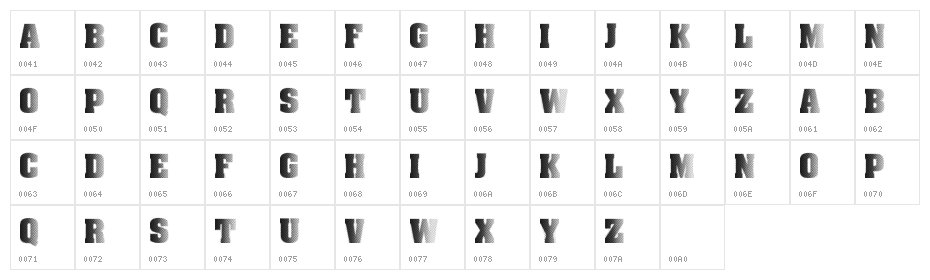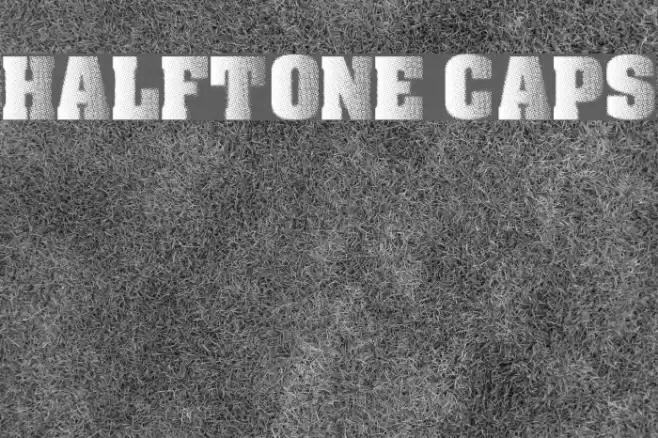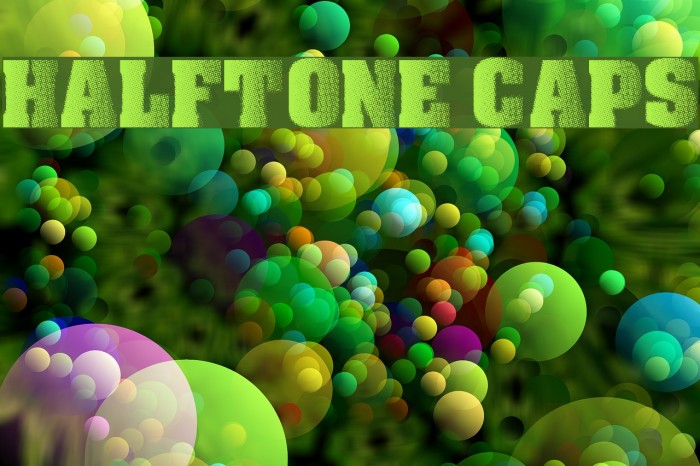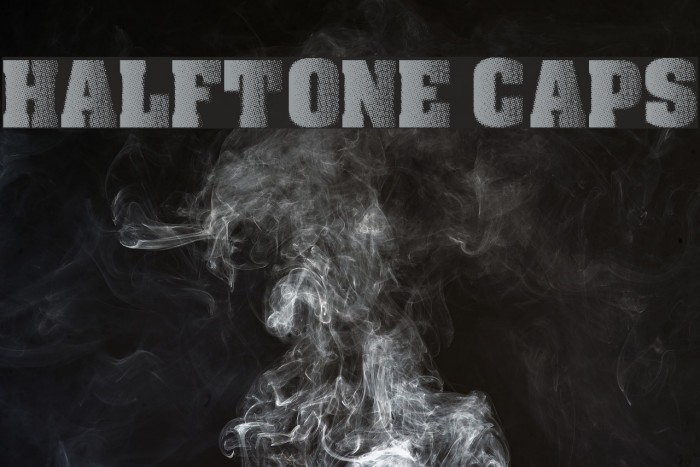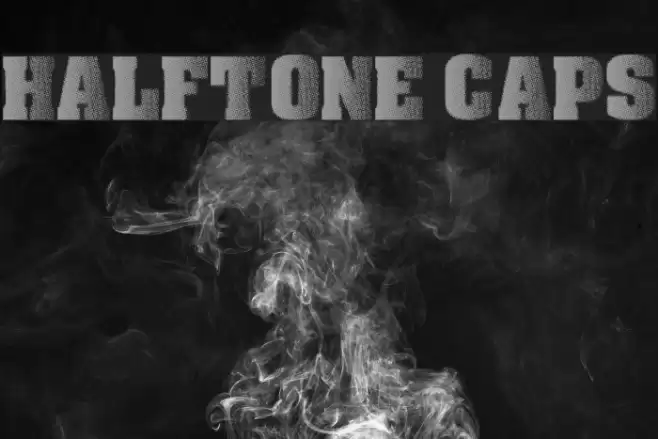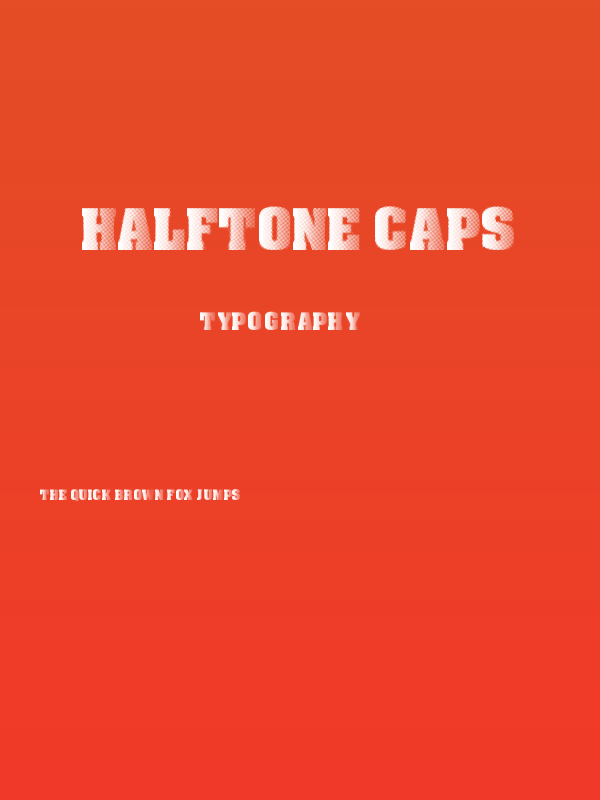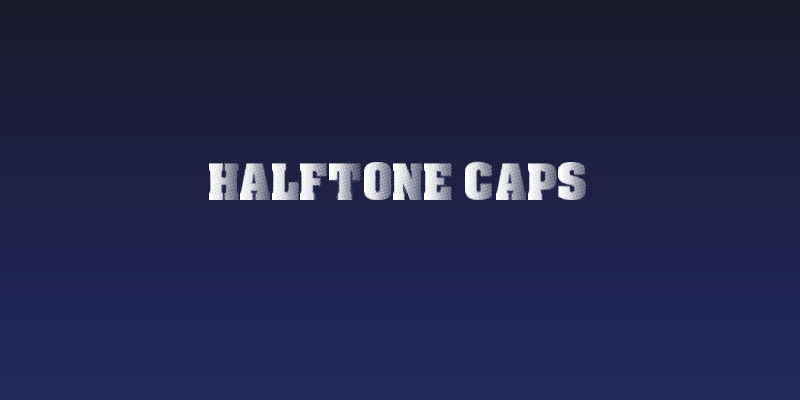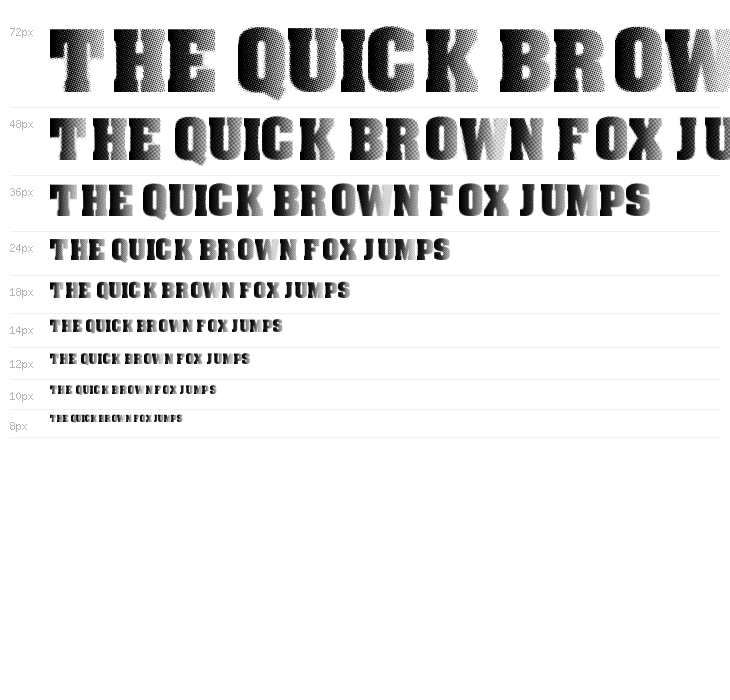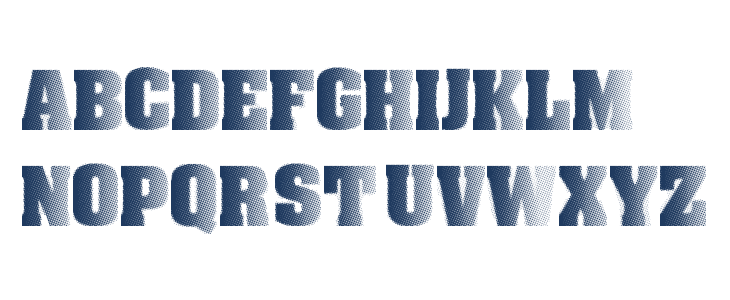
Halftone CAPS Font
Halftone CAPS Description
This font features a bold, decorative style with a halftone texture that gives it a unique, vintage appearance. The letters are uppercase and have a strong presence, making them ideal for attention-grabbing designs. The halftone effect creates a sense of depth and texture, reminiscent of old print media. Each character is well-defined, with consistent spacing and a uniform weight that enhances readability while maintaining its distinct style.
| Proposed Projects | Ideal for retro-themed posters, vintage branding, album covers, and eye-catching headlines. |